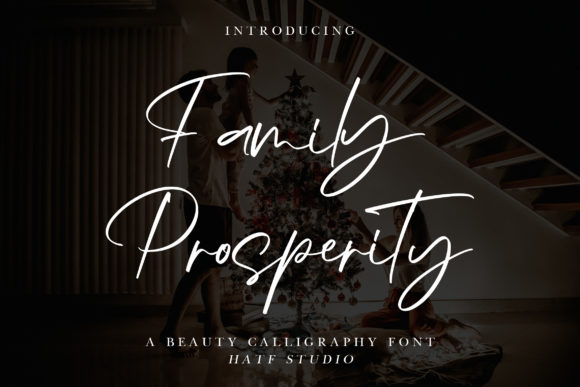
Adorn your creative projects with the allure of Family Prosperity Font, a captivating script font that exudes elegance and charm. Step into a world of sophisticated typography where each letter dances with grace, leaving a trail of beauty in its wake.
Unleash your inner artist and let Family Prosperity Font elevate your designs to new heights. With its enchanting curves and impeccable flow, this font is a symphony of visual delight, transforming ordinary words into captivating expressions. Whether you're crafting logos, invitations, branding materials, or social media posts, Family Prosperity Font will add a touch of refinement and exclusivity to your creations.
Immerse yourself in the world of Family Prosperity Font and discover a universe of creative possibilities. This font is not just a collection of letters; it's an invitation to express yourself in a way that's both personal and profound. Let your words take on a life of their own as they flow effortlessly from your fingertips, guided by the exquisite artistry of Family Prosperity Font.
Feel the joy of crafting personalized signatures that reflect your unique personality. With Family Prosperity Font, your signature becomes a work of art, a visual representation of your essence. Create stunning wedding invitations that capture the essence of your love story, or design business cards that leave a lasting impression on potential clients. The possibilities are endless, and the beauty is all yours to behold.
Embrace the power of Family Prosperity Font and unlock the door to a world of creative wonders. Let your imagination soar as you explore the limitless possibilities that await you. This font is your gateway to a world of visual enchantment, where words transform into art, and your designs take on a life of their own.